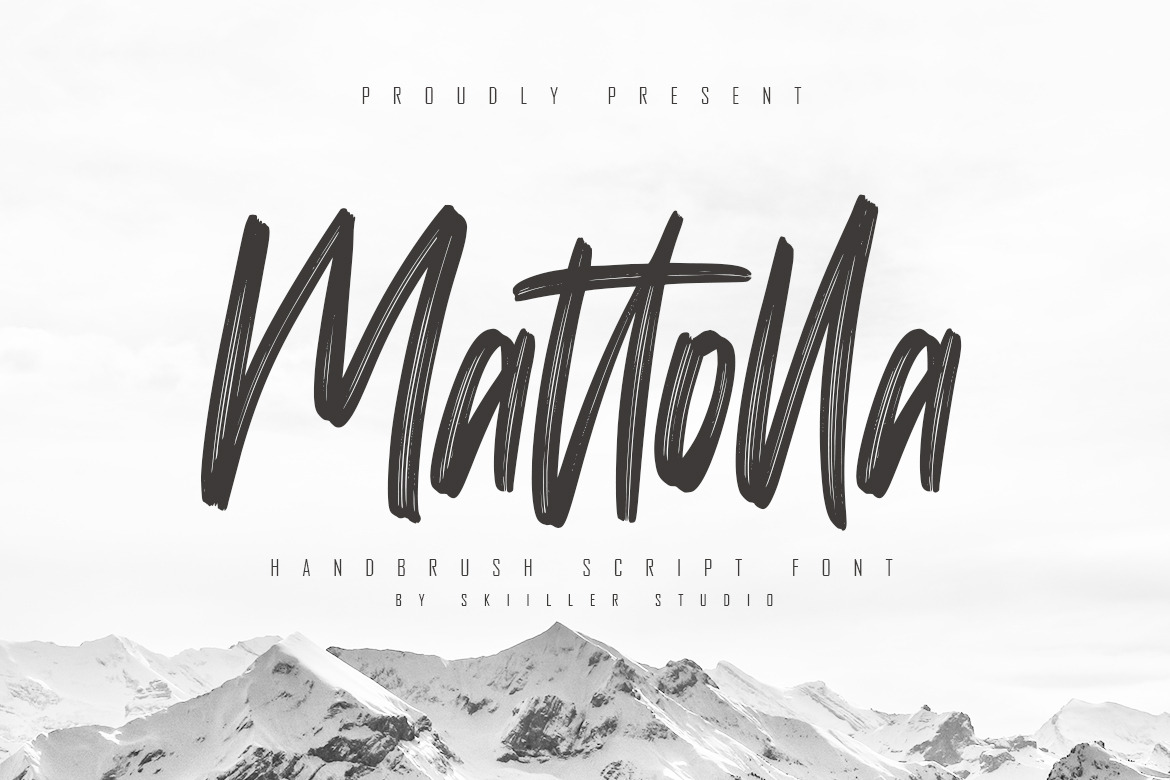
Mattolla - Handbrush Script Font
Mattolla is a natural handmade textured brush text font with an irregular base line. Suitable for use in title design. Such as , films, quotes, branding, logos, and others.